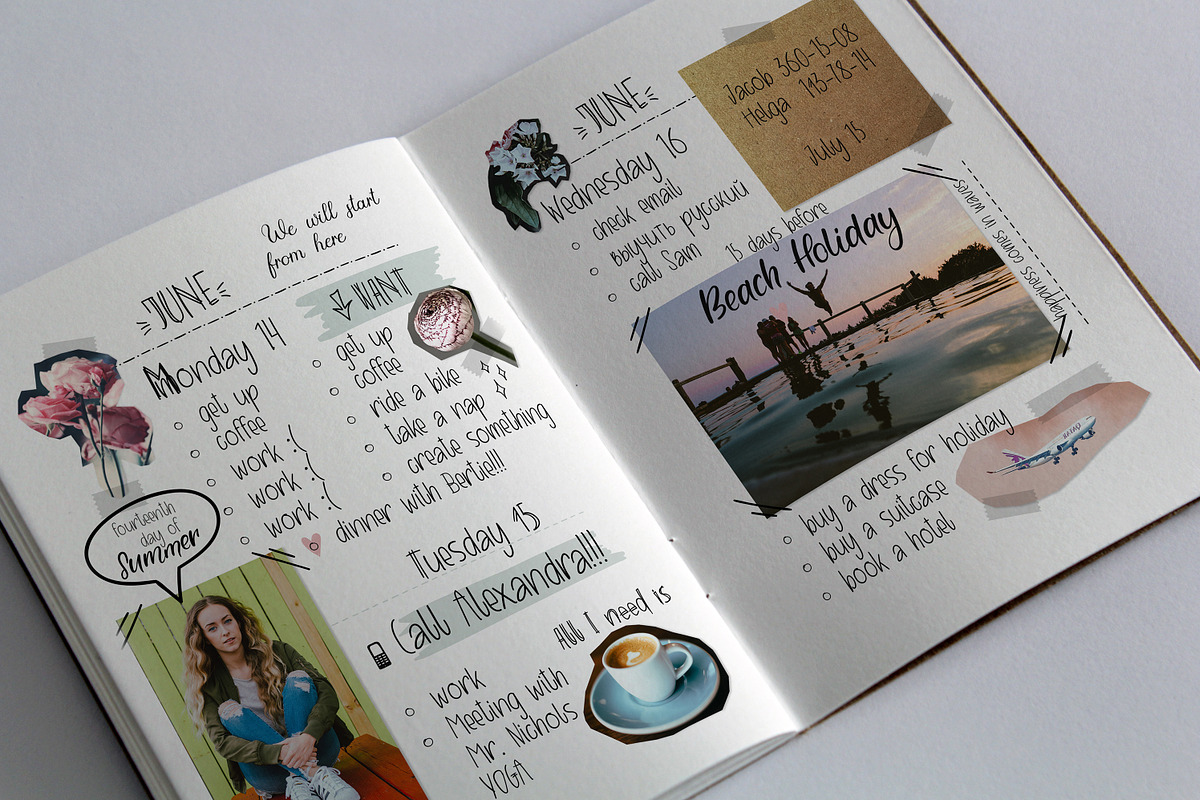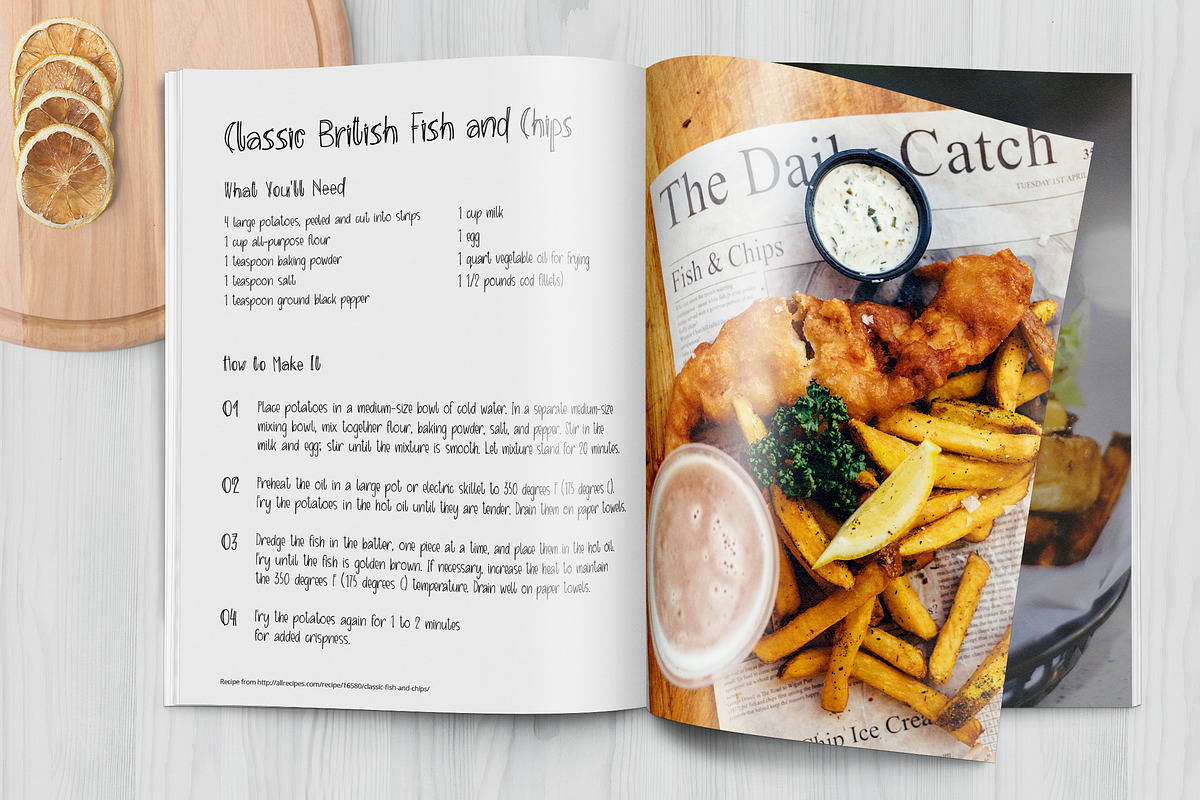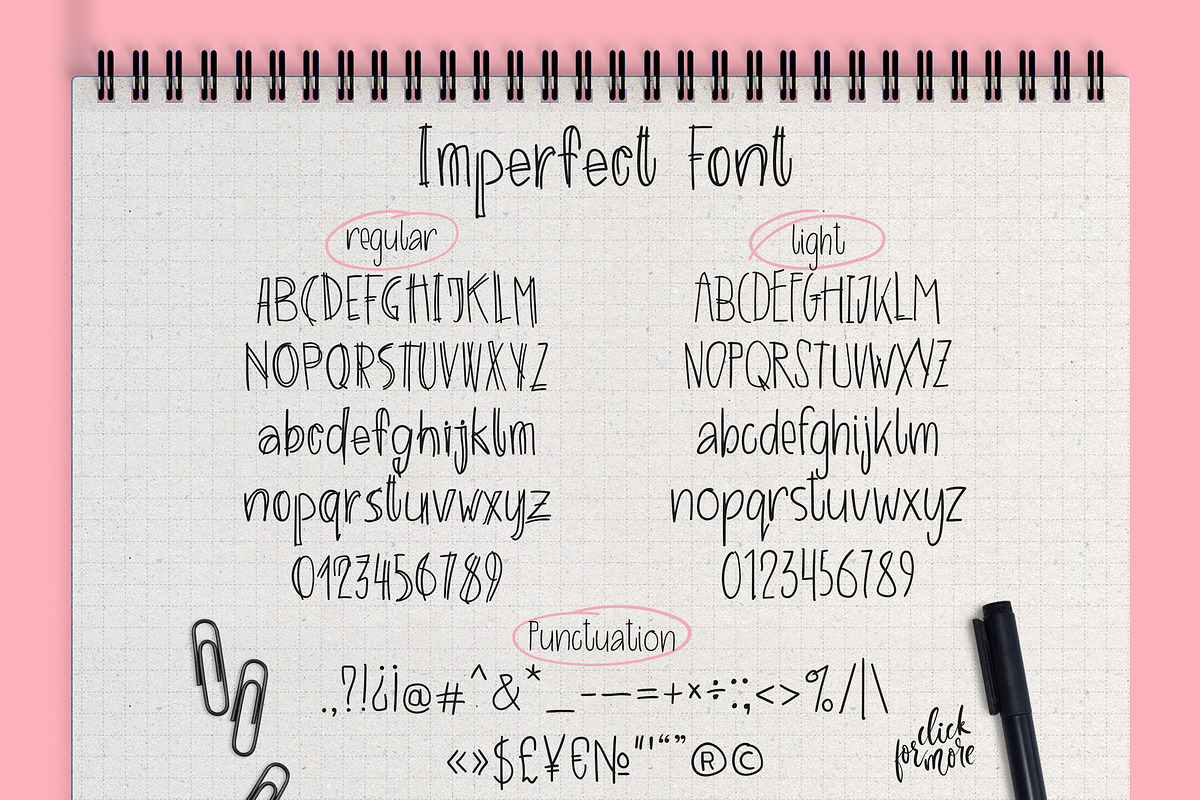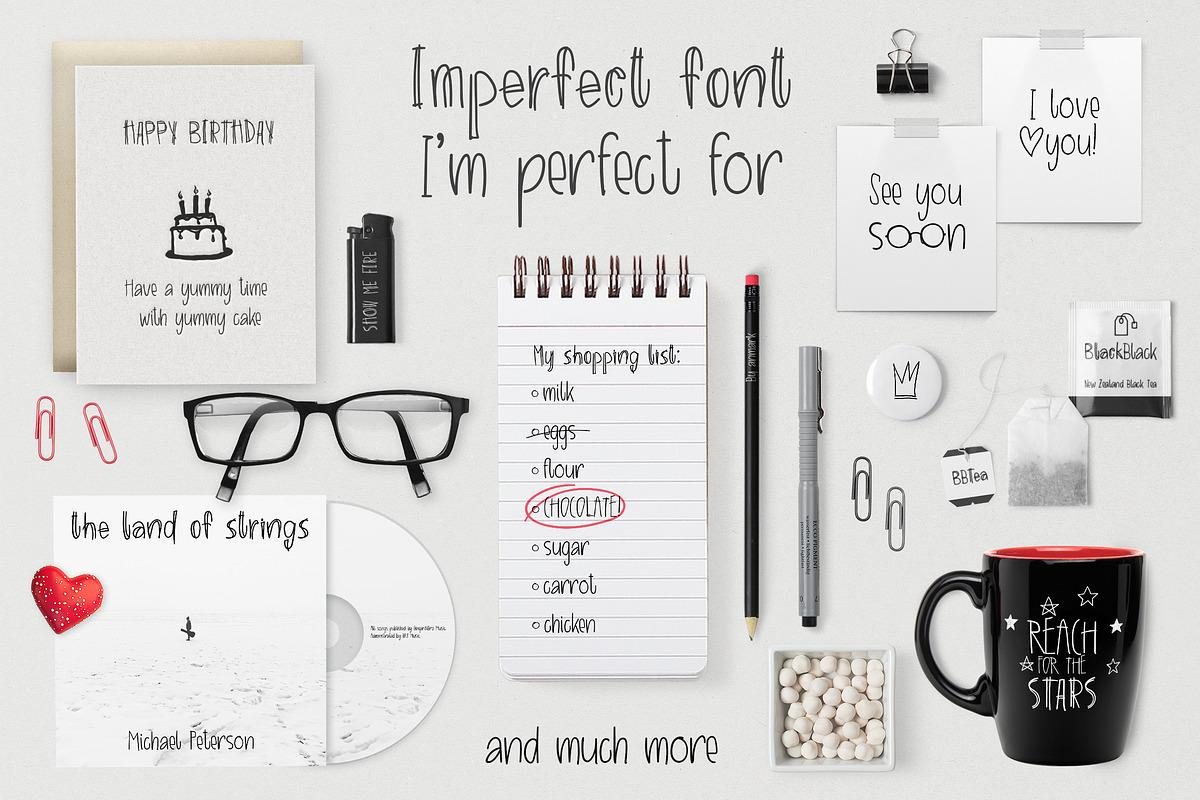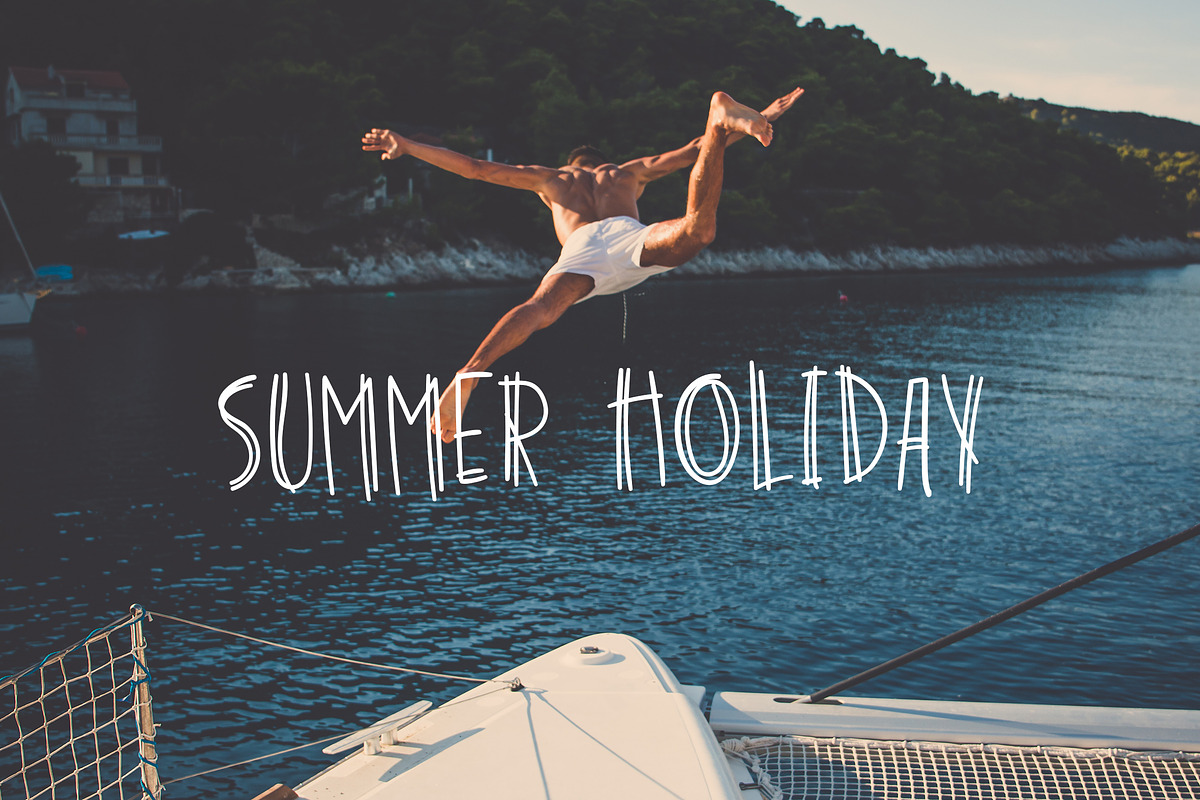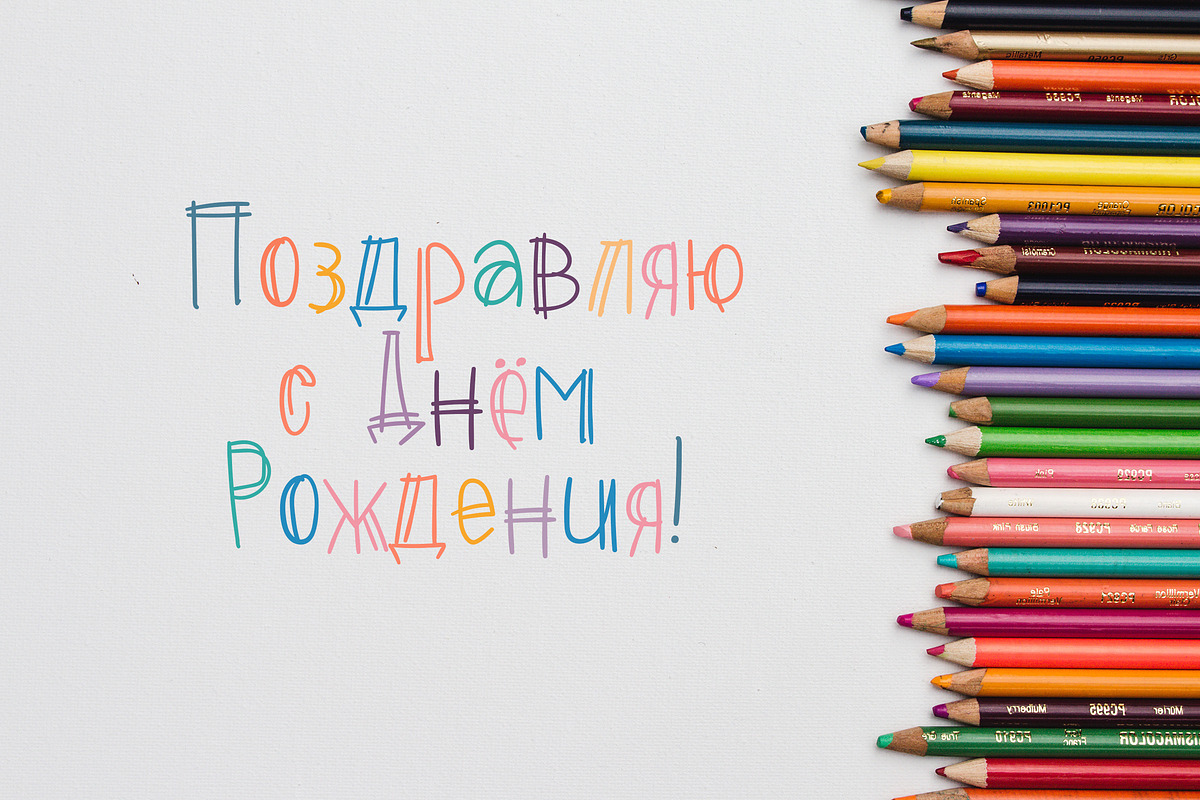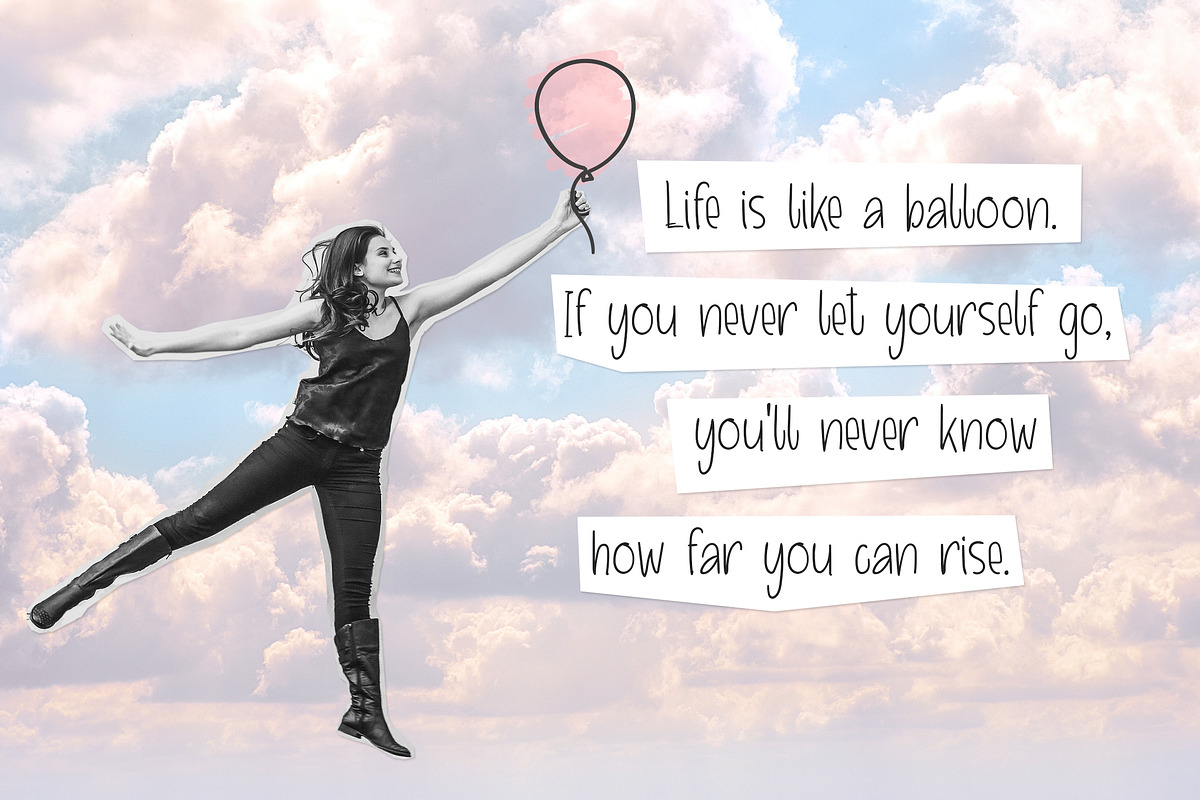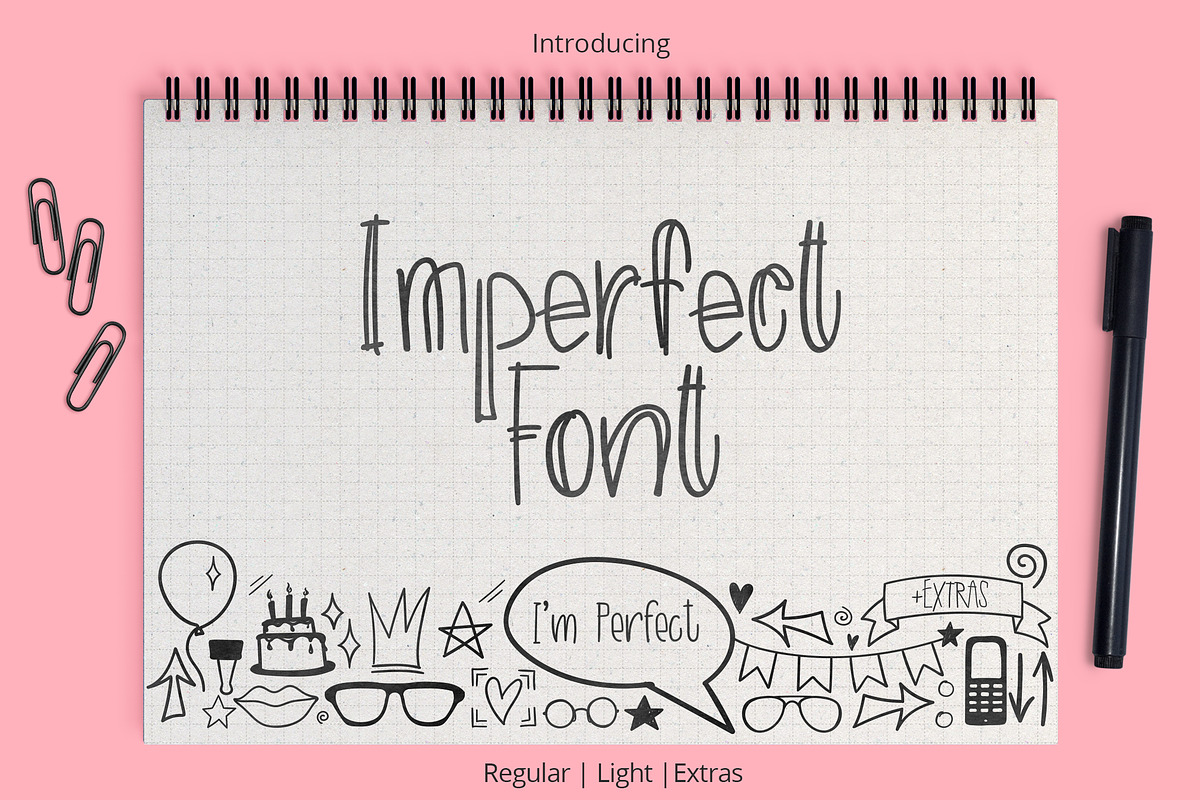
Imperfect. Marker scribble font
I’m pleased to introduce my new handwritten Imperfect font family! Imperfect font comes in 3 styles: Regular, Light and Extras. You can combine those variations to make stunning designs and create a unique look.
Imperfect is perfect for recipe books, scrapbooking, greeting cards, product packaging, headings, flyers, posters, book covers, printed quotes, logotypes, quotes, apparel design, album covers, etc.
Imperfect Font Light can be used in a variety of project styles where a quick hand written type is needed. For some projects (for example sketch book scrapbooking as in a preview), I recommend combining Imperfect Font Light with handwritten fonts, for example with
Imperfect Font Extras is a symbol font. You can use these characters either separately or in combination with Imperfect Regular and Imperfect Light. The symbols perfect for greeting cards, photo overlays, scrapbooking, writing letters and just for fun :).
In addition to English, Imperfect font supports main European Languages and it had Cyrillic letters. If you have any questions please let me know!
- You can use these characters either separately or in combination with Imperfect Regular and Imperfect Light.